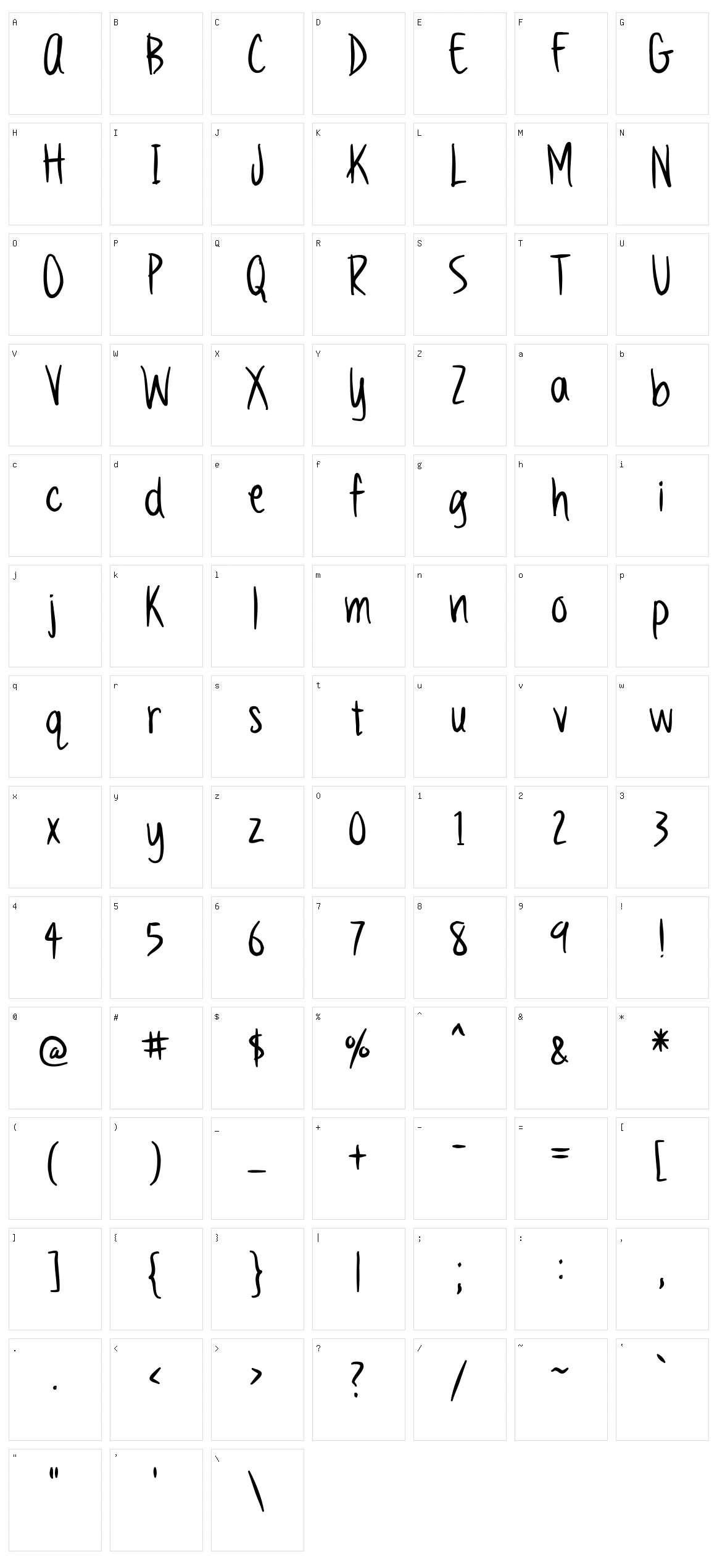
The free font Vanilla Twilight is carefully designed by Brittney Murphy Design, showcasing a thoughtful balance of creativity and usability and falls under the Script font style. When you download the ZIP file, it contains only 23.94 KB of font files, making it lightweight and quick to download. Please review the license details below to understand permitted usage and distribution rights. If license information is not available, we recommend using this font for personal projects only or contacting the author directly for commercial usage permissions.
"Vanilla Twilight" is a font created and copyrighted by Brittney Murphy.